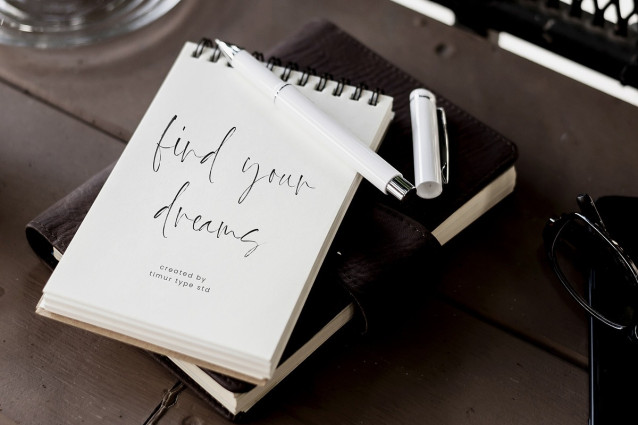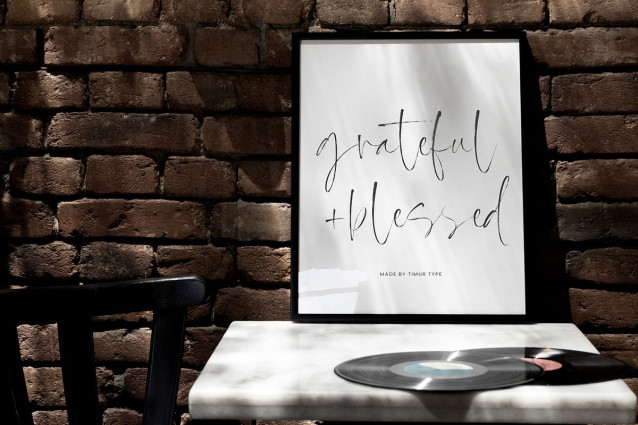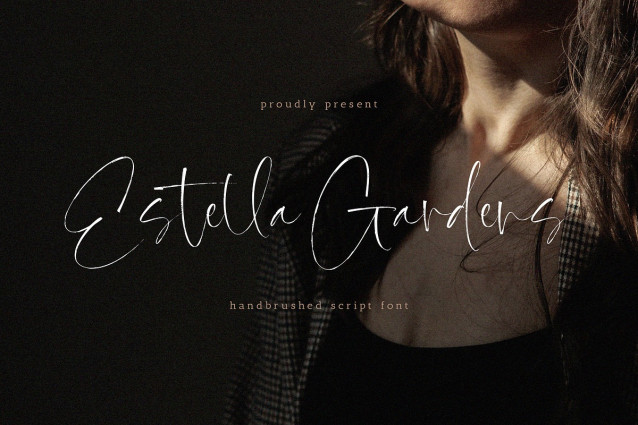
Estella Gardens Font
Estella Gardens Font is a Handbrushed Script Font. This font showcases the timeless elegance of handbrush script fonts, where each stroke tells a story and adds a twist to your design. With organic lines and graceful curves, these fonts effortlessly blend modern sophistication with a touch of artisanal craftsmanship, creating a harmonious balance that elevates any project to a level of refined beauty and individuality. Let the art of hand-brushed script fonts transform your words into visual poetry, capturing the essence of your message with a touch of bespoke charm.